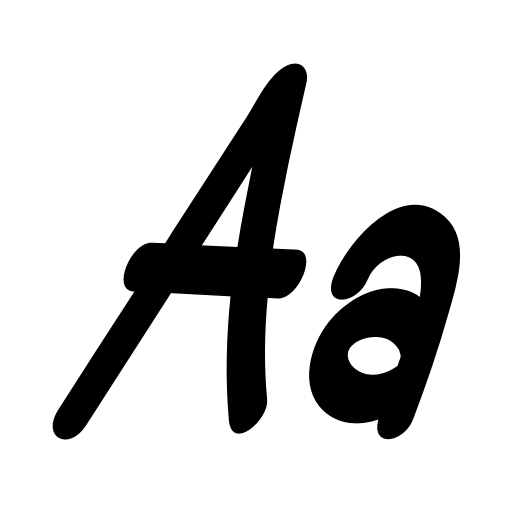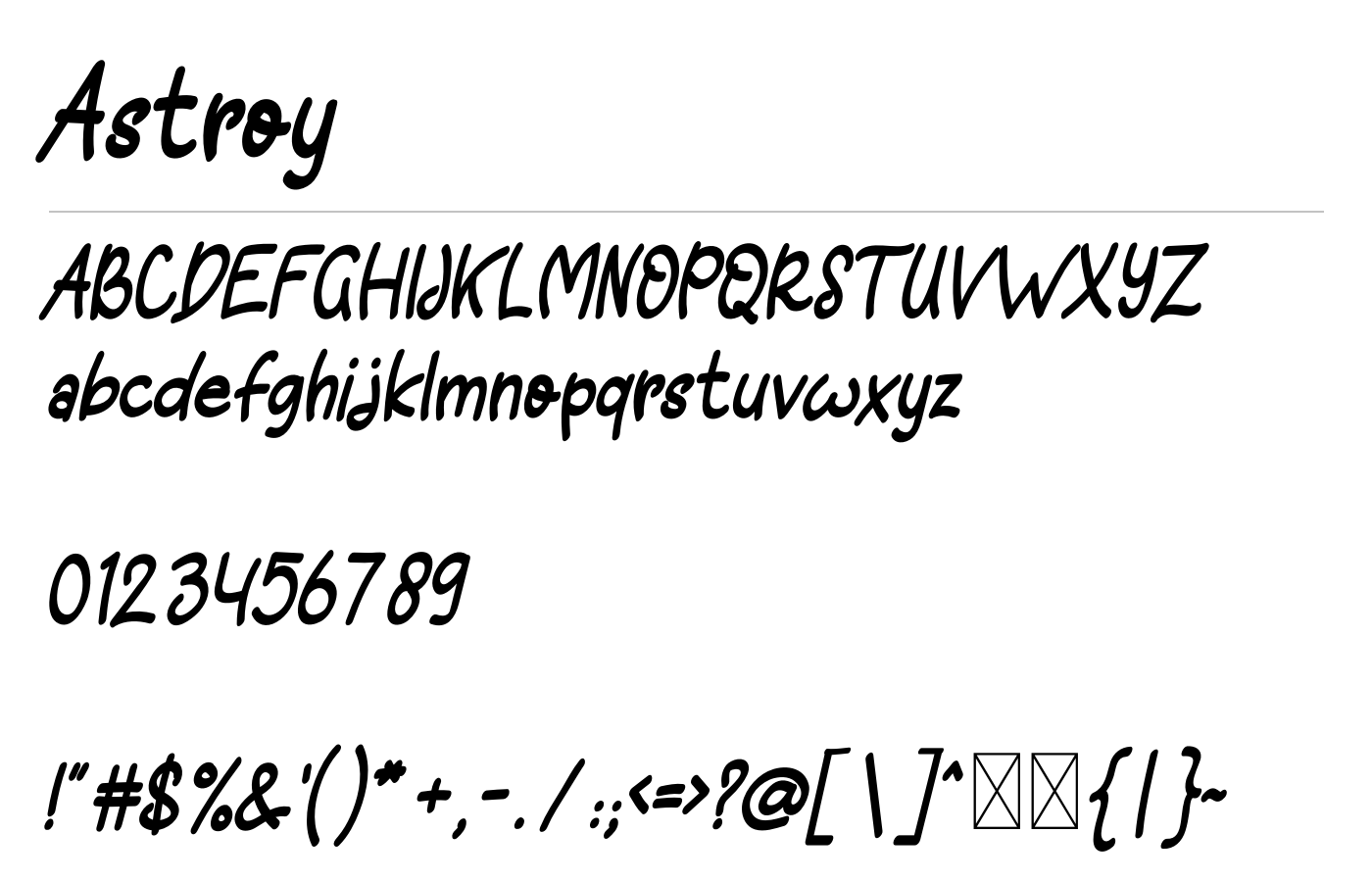
Astroy is a lively and casual script font with a rounded, hand-drawn feel that brings warmth and personality to any design. Its slightly condensed and uneven letterforms create a dynamic and approachable look, making it ideal for playful branding, informal headlines, and creative projects that want to convey friendliness and uniqueness. This font works well where a personal, handwritten touch is desired without sacrificing legibility.
Astroy Font
About Astroy Font